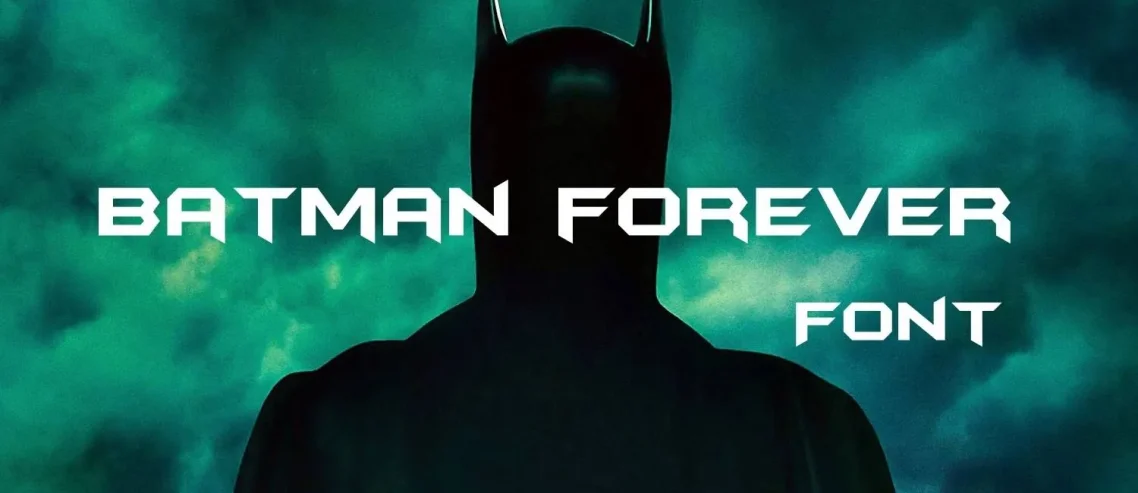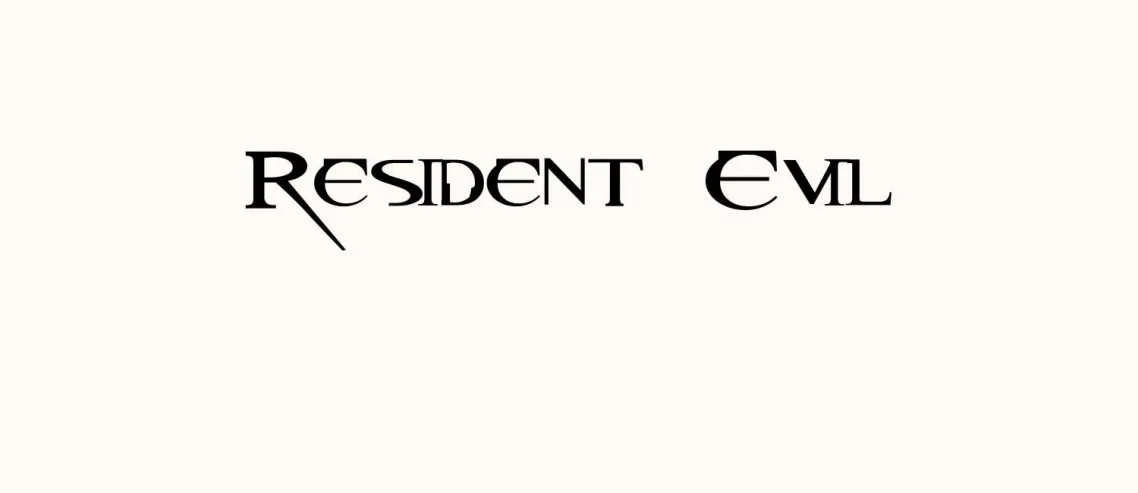
Resident Evil Font Free Download
Resident Evil Font is a bold and eerie typeface associated with the horror-themed Resident Evil video game series. With its sinister and dramatic characters, this font is commonly used in designs related to horror games, movie posters, or any project that aims to capture the suspenseful atmosphere of the Resident Evil franchise. Resident Evil Font …
Batman Forever Font Free Download
Batman Forever Font is a bold and dynamic typeface inspired by the iconic Batman franchise. With its sharp and impactful characters, this font is commonly used in designs related to comics, movie posters, or any project that aims to capture the bold and heroic essence of Batman. Batman Forever Font is often available in TrueType …